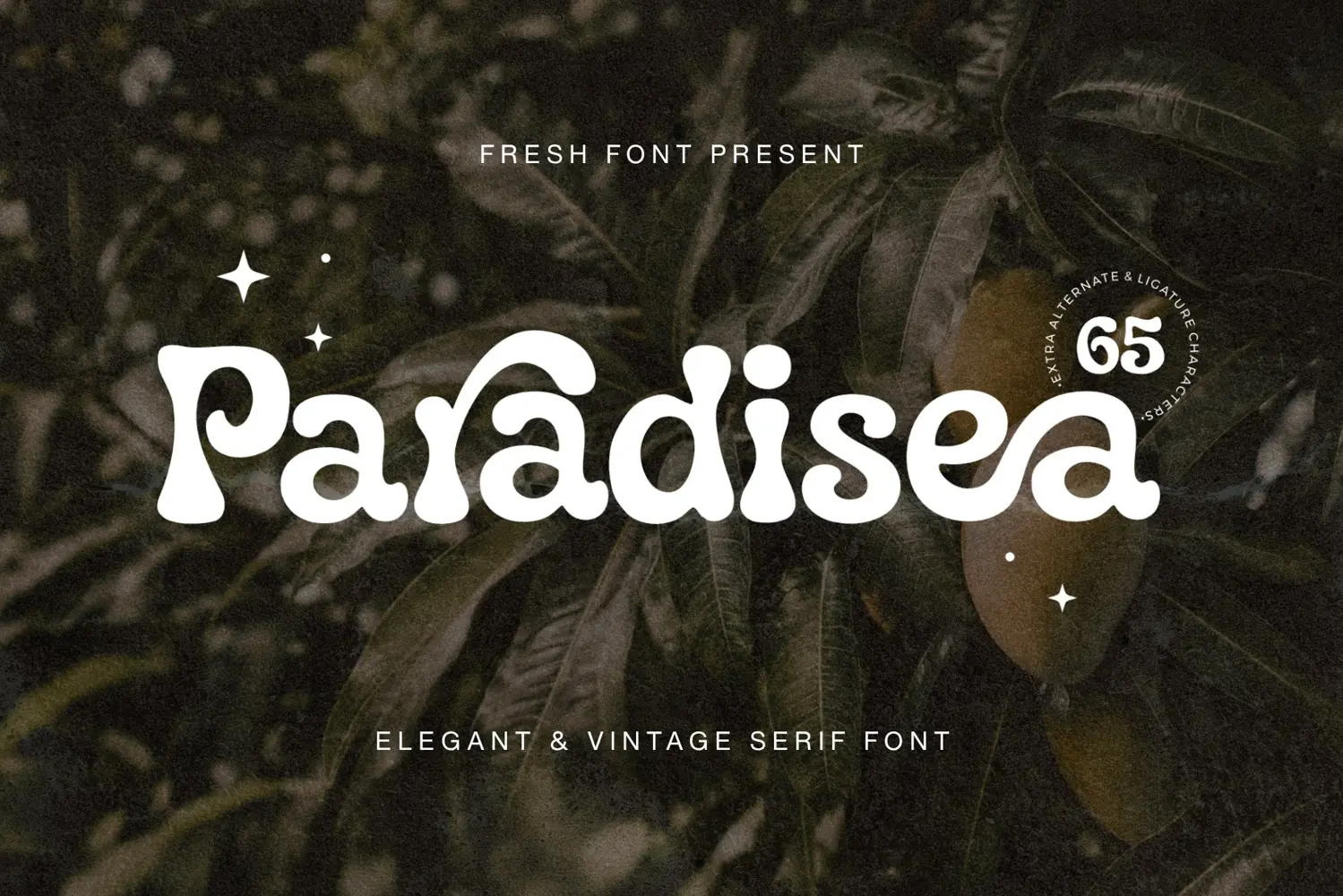
Paradisea Elegant Vintage Serif Font | Retro Luxury Typeface
Paradisea is an elegant and vintage-inspired serif typeface designed to bring a stylish, organic, and timeless character to your creative projects. With its bold yet soft letterforms, Paradisea combines a classic serif foundation with playful curves and distinctive details, making it perfect for designs that need a unique and sophisticated personality.
Inspired by vintage aesthetics, botanical moods, retro branding, and modern editorial design, Paradisea works beautifully for logos, branding, packaging, posters, magazines, book covers, invitations, apparel, labels, social media graphics, and creative advertising.
The typeface includes extra alternate and ligature characters, giving you more flexibility to create customized lettering and expressive typographic compositions. Mix and match the available characters to achieve a more handcrafted and artistic look.
Whether you're creating a vintage logo, boutique branding, editorial artwork, fashion graphics, or an eye-catching headline, Paradisea adds a distinctive retro-elegant touch to your work.